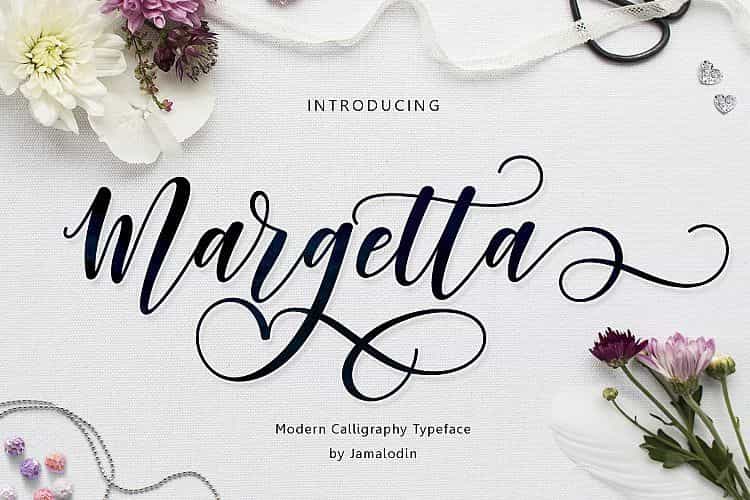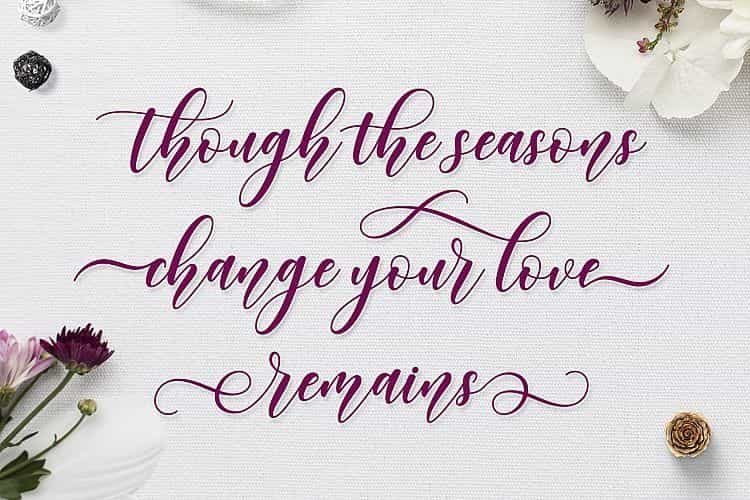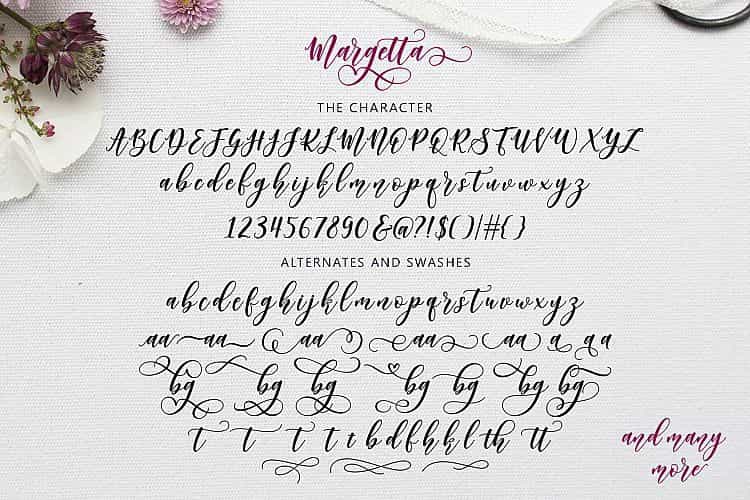
Margetta is a modern and beautiful calligraphy font that suits well to modern design projects. Thus, each of the letters is designed in such a way that the resulting text will be beautiful. This is a modern script style font that suit almost any project you have in mind, be it an invitation, a poster, a greeting card, names and quotes, a blog header, branding, logos for fashion, clothing letters, stationery, and so on.